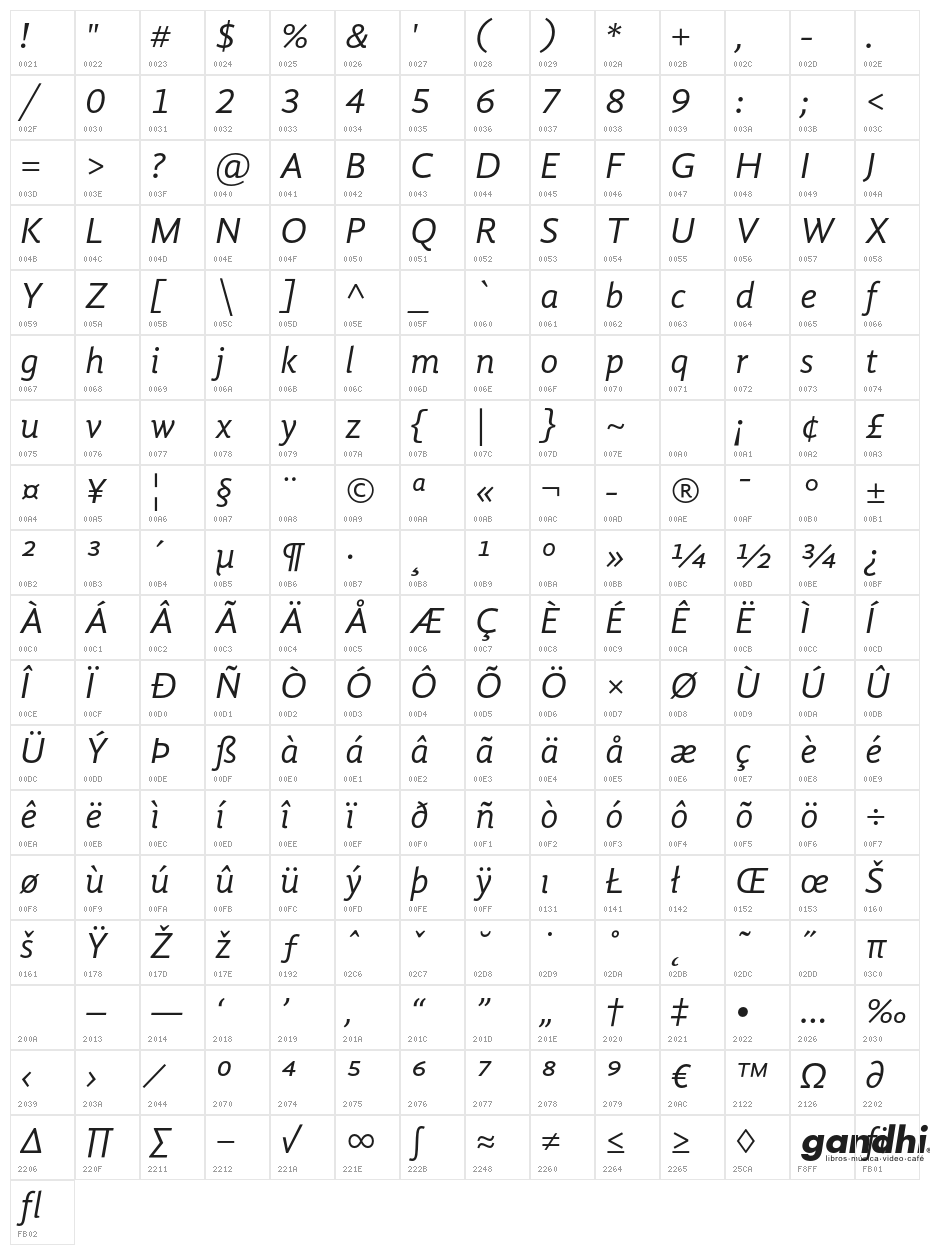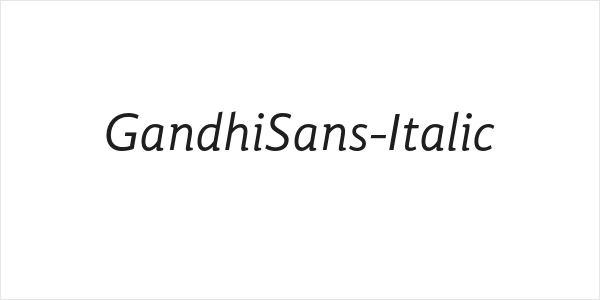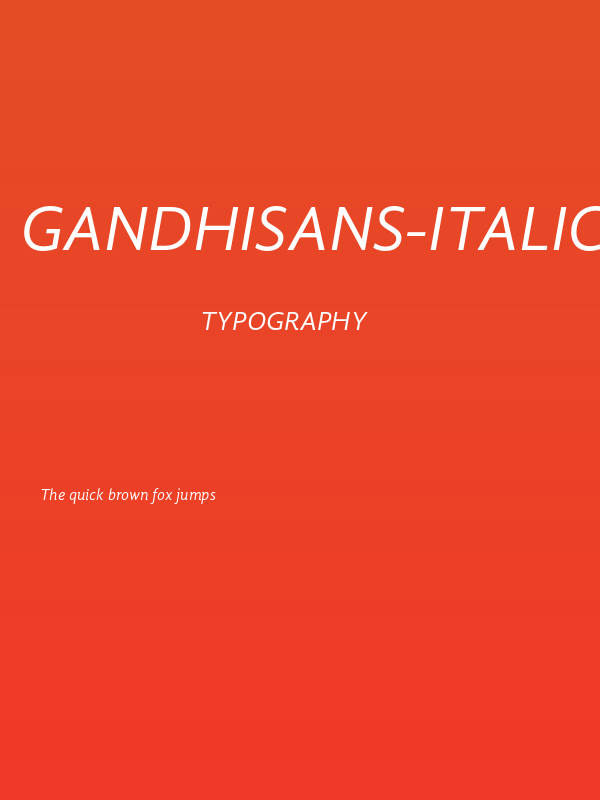
GandhiSans-Italic Font
GandhiSans-Italic Description
This font features a clean and modern sans-serif design with a subtle italic slant, providing a sense of motion and elegance. The characters are well-proportioned with a consistent stroke width, offering a harmonious and balanced appearance. The uppercase letters are slightly taller than the lowercase, maintaining readability and clarity. The numerals are straightforward and align well with the overall style, while the special characters are distinct and easily recognizable. This font's simplicity and elegance make it versatile for various design applications.
| Proposed Projects | Ideal for branding, editorial design, websites, and advertising materials where a modern and elegant touch is desired. |